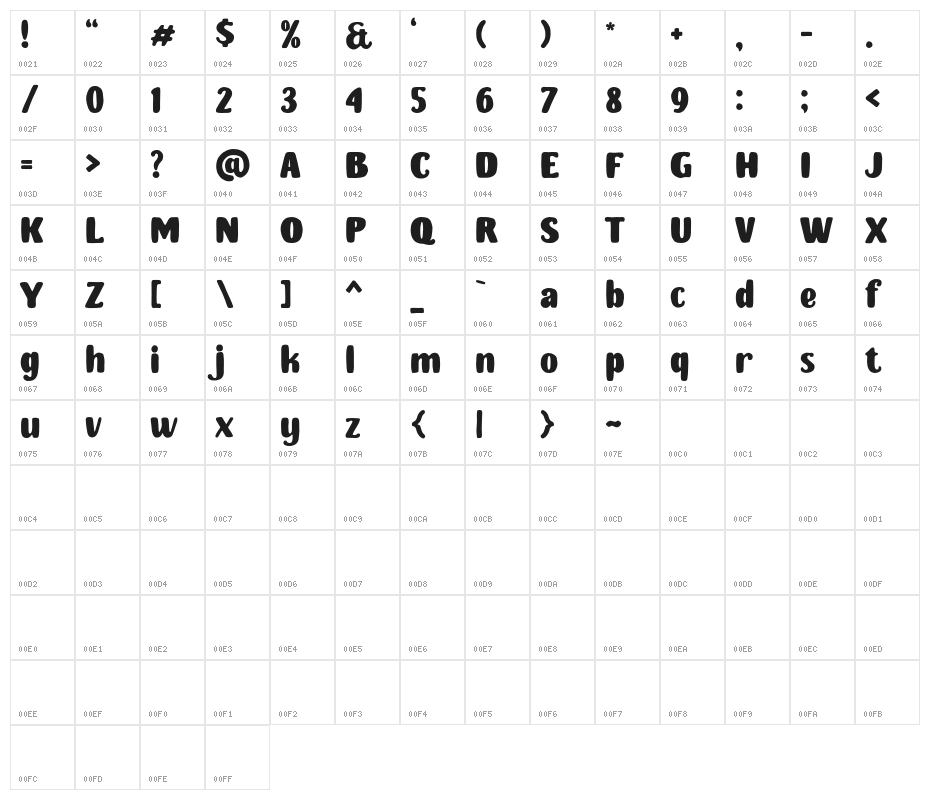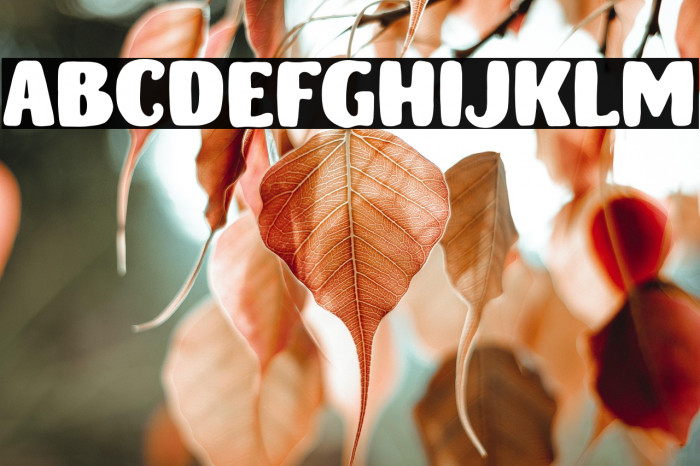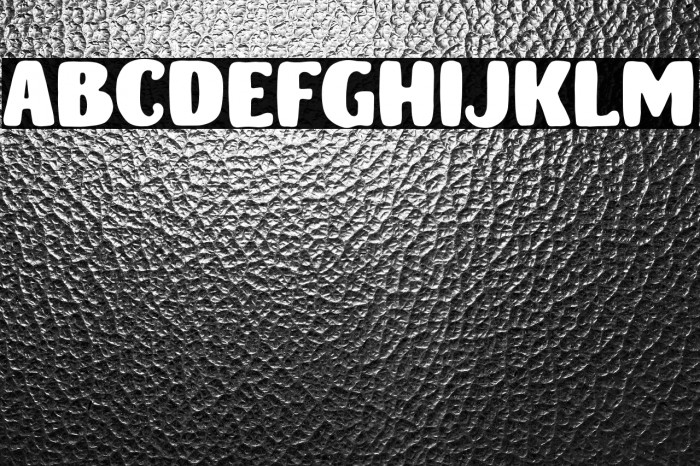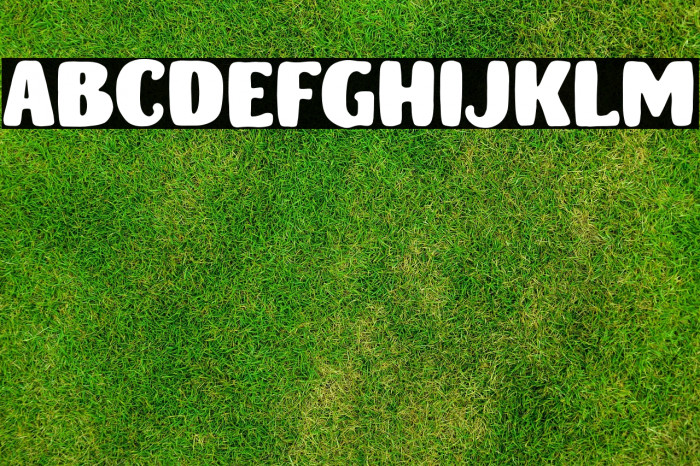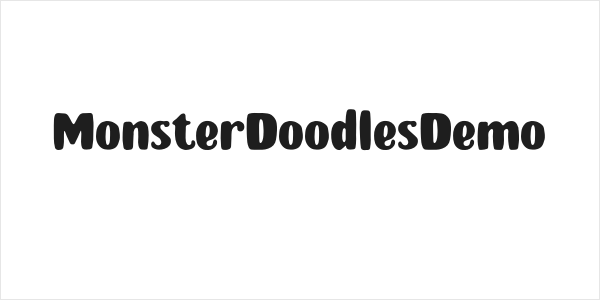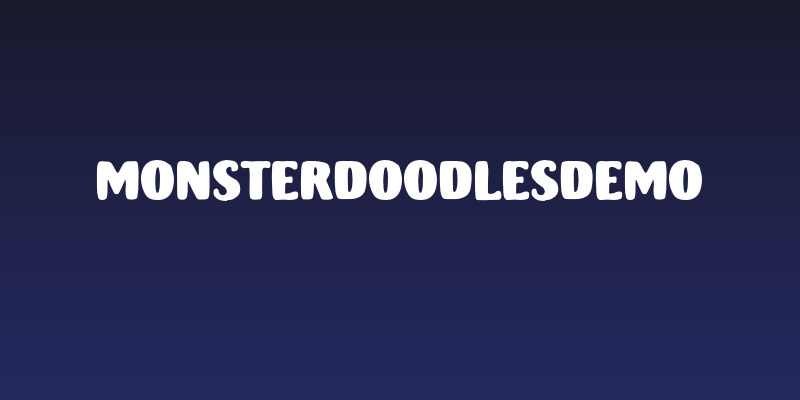
MonsterDoodlesDemo Font
MonsterDoodlesDemo Description
This playful and bold font features thick, rounded characters that exude a sense of fun and creativity. The letters are slightly irregular, giving them a hand-drawn appearance that adds to their charm. The uppercase and lowercase letters maintain a consistent style, with smooth curves and a slightly whimsical feel. Numbers and special characters are equally bold and expressive, making this font suitable for eye-catching designs. Its unique style is perfect for projects that require a touch of personality and flair.
| Overall Style | Playful, Creative |
| Proposed Projects | Ideal for children's books, playful branding, posters, and creative invitations. |